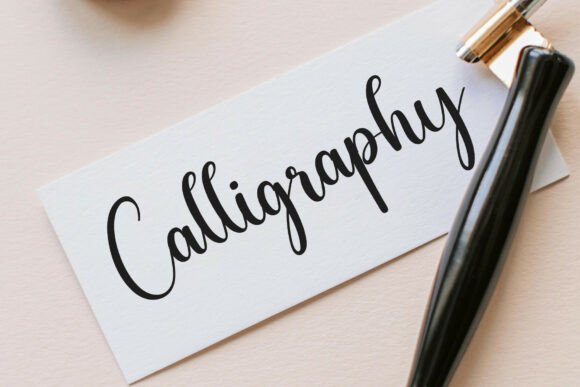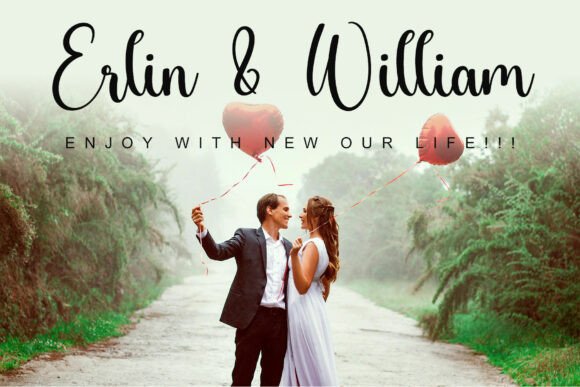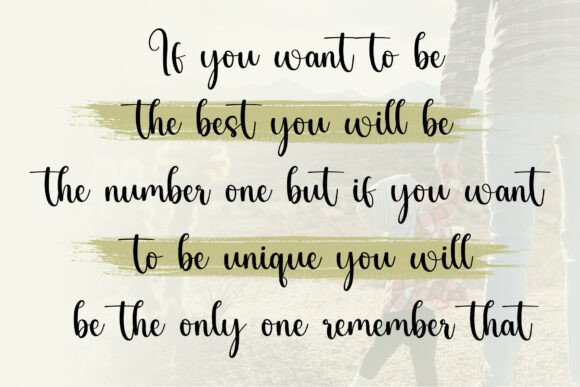
Baseball Together Font
Baseball Together is a font that captivates with its bold, fluid strokes and dynamic script style. Designed to exude strength, elegance, and charisma, this font blends the beauty of handwritten calligraphy with a modern and assertive touch. Whether you need a striking logo, a stylish headline, or an eye-catching branding element, Master Daddy delivers with confidence and flair.